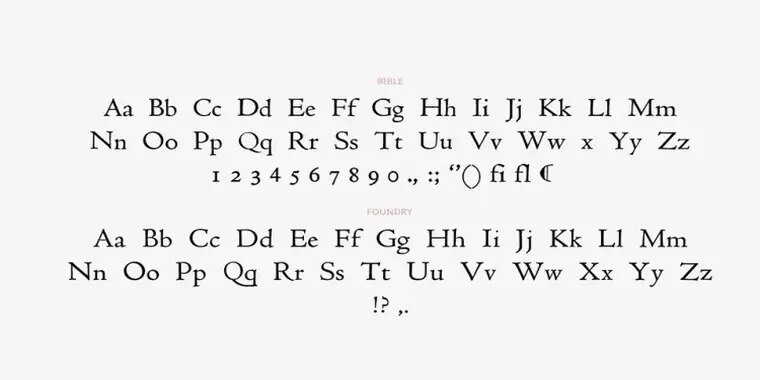
Museum Font is a fancy font with serifs and elegant handwriting. Museum Font is a traditional and neat kind of writing with smooth shapes that will add a fancy feel to your projects. It is appropriate for formal use and works well for titles and smaller text.